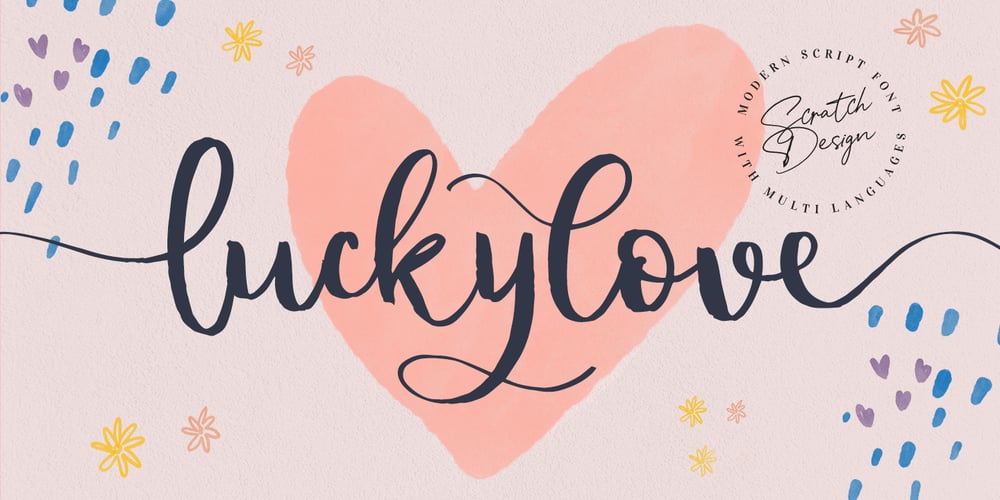
Luckylove Font Family was designed by Gitayogi Irhandi and published by Scratch Design. Luckylove contains 1 styles and family package options. Luckylove is a modern script font with natural brush effects in the bouncy curve and loops. This font will make your design text look stand out and also perfect for logos, posters, wedding invitations, websites, printed quotes, invitations, cards, product packaging, headers, and whatever with a feminine touch in your designs. Luckylove is an awesome script font that comes with some of the lowercase alternates, that allows you to create even more authentic modern script-feel text. Another feature of this font is complete with multi-languages.